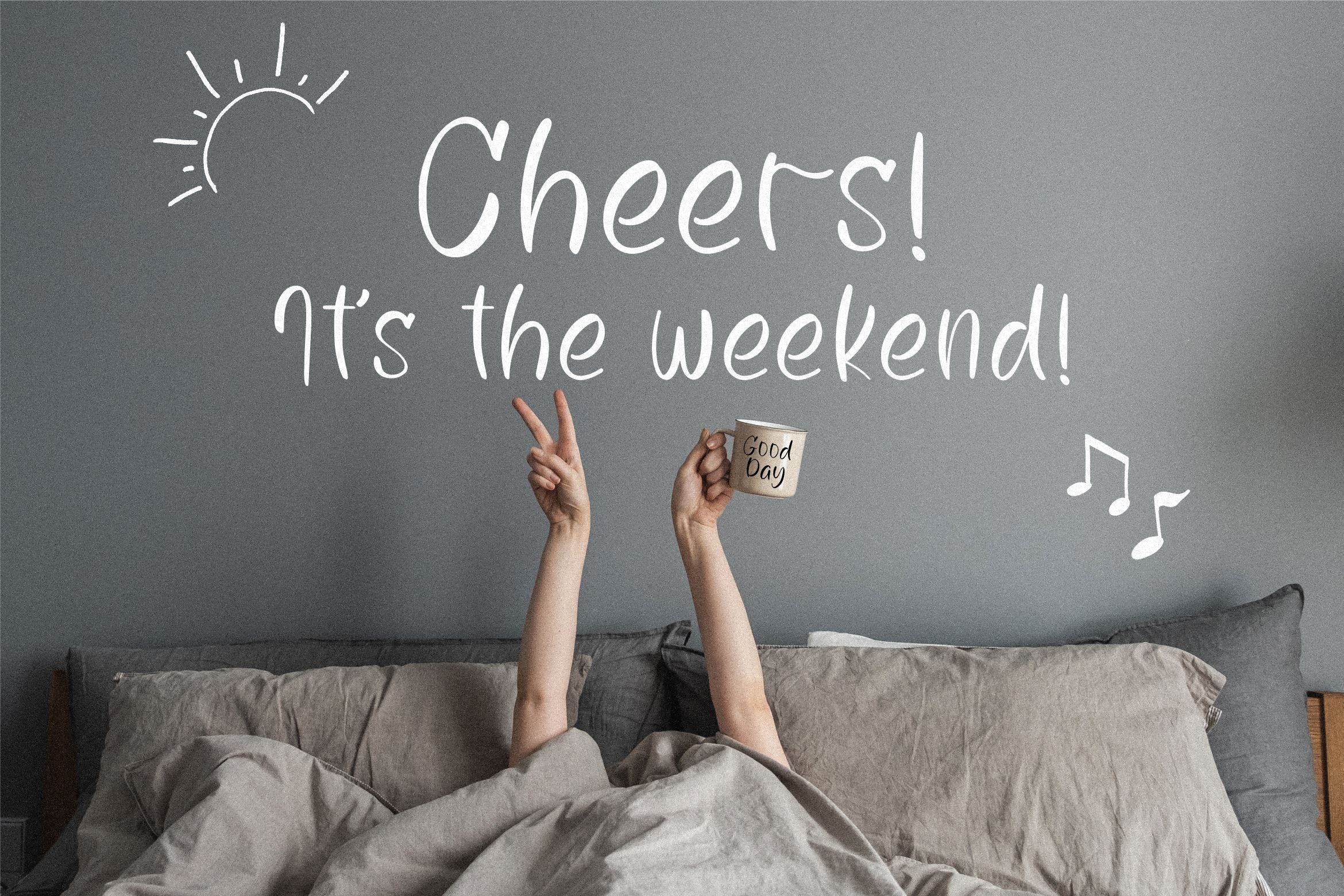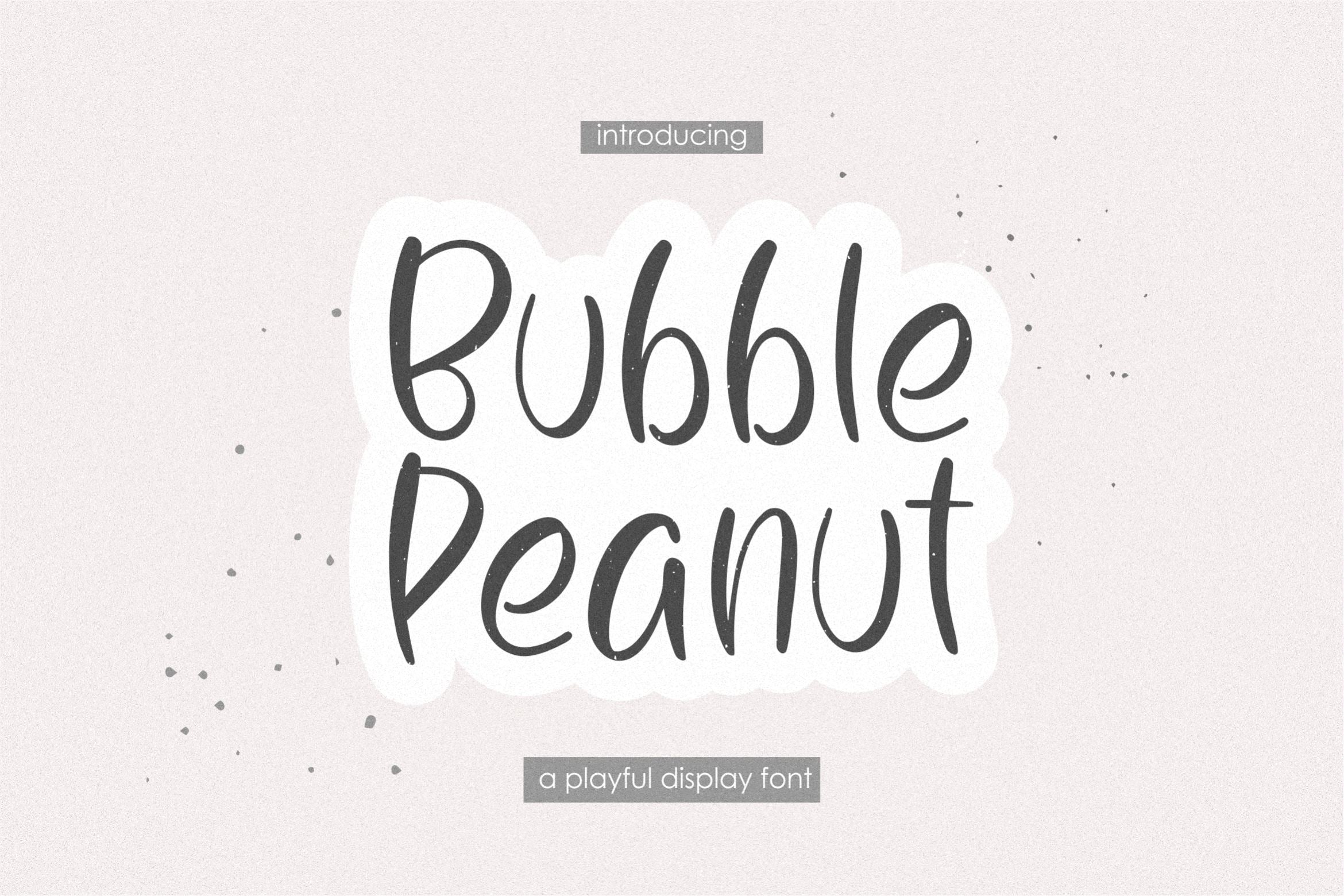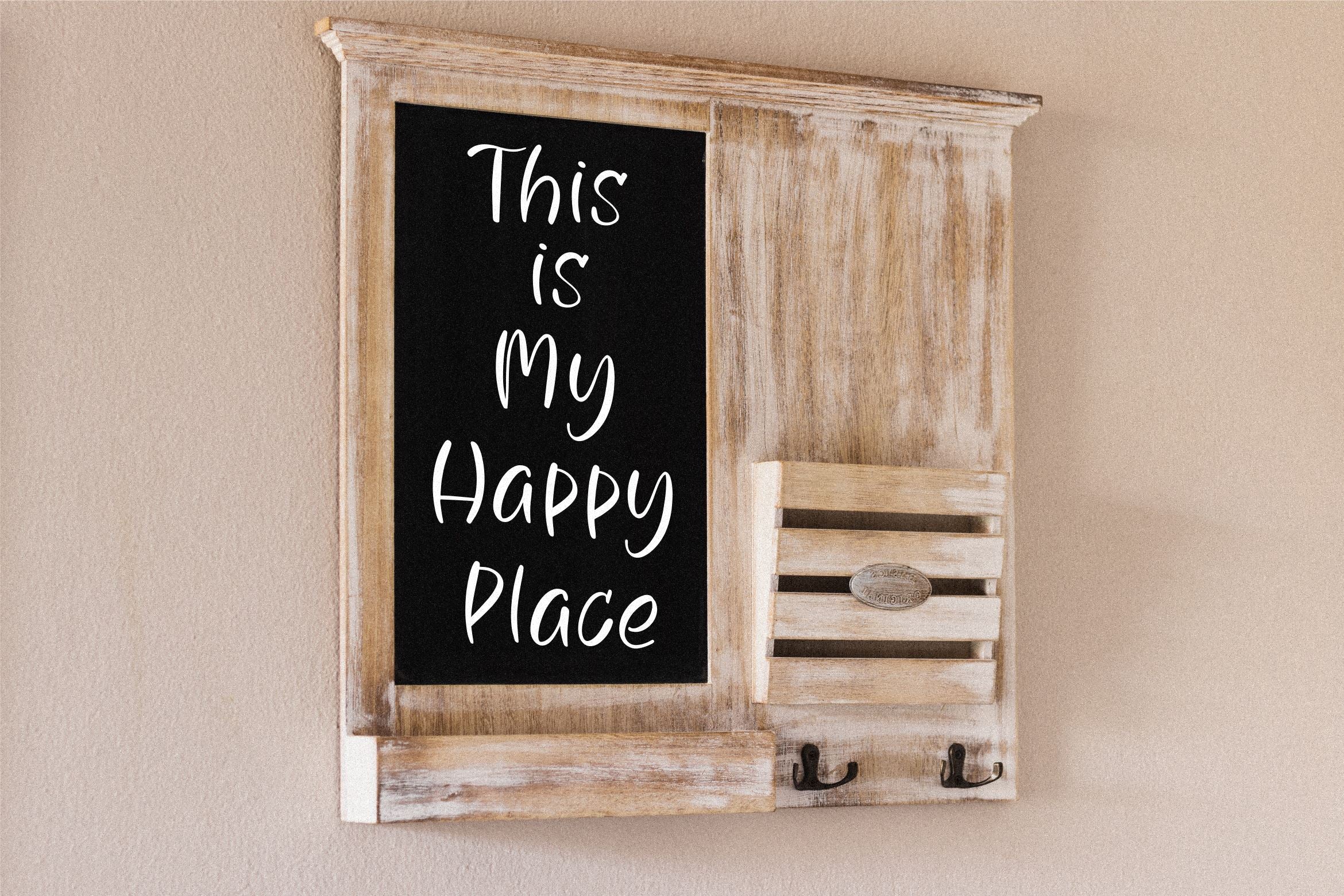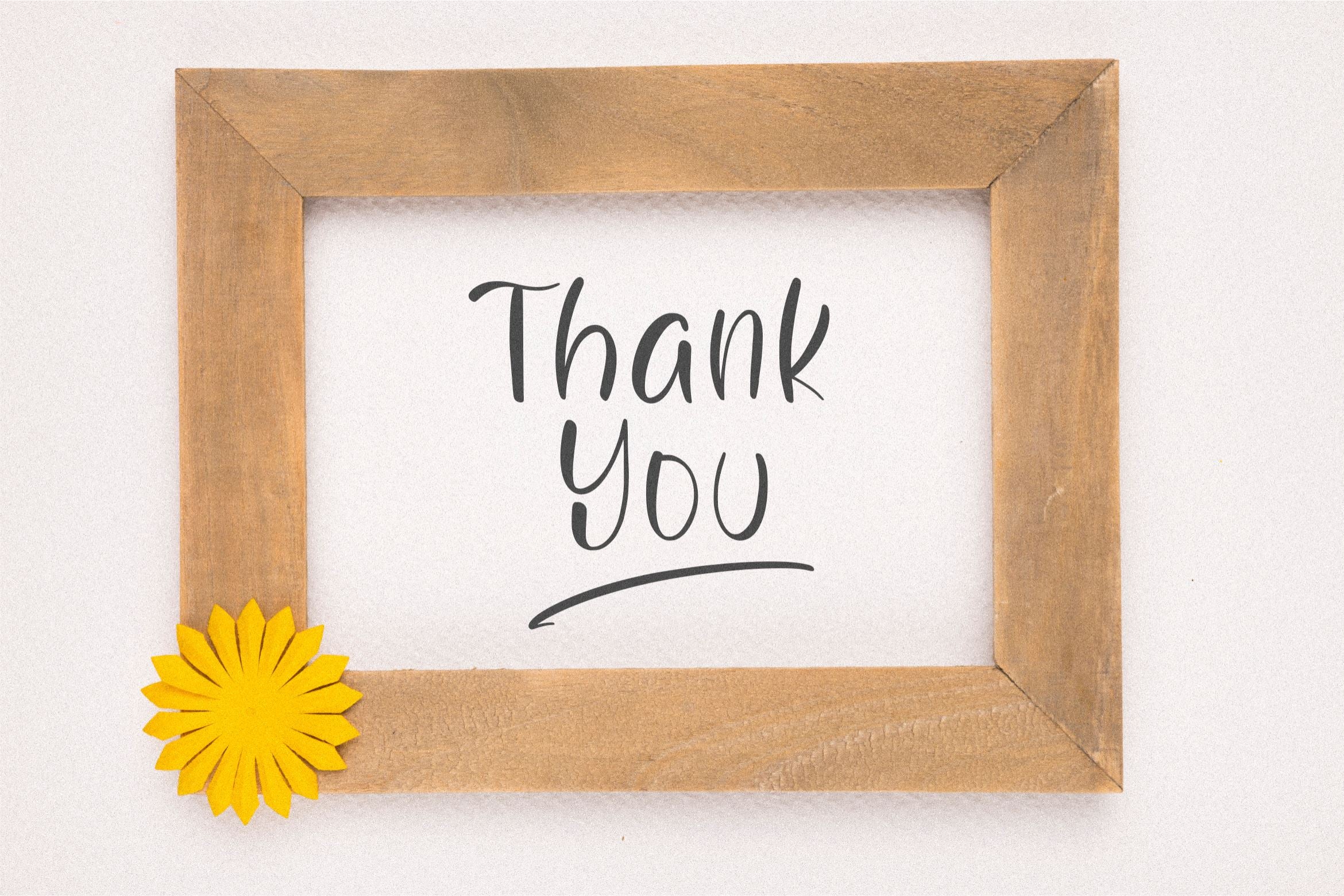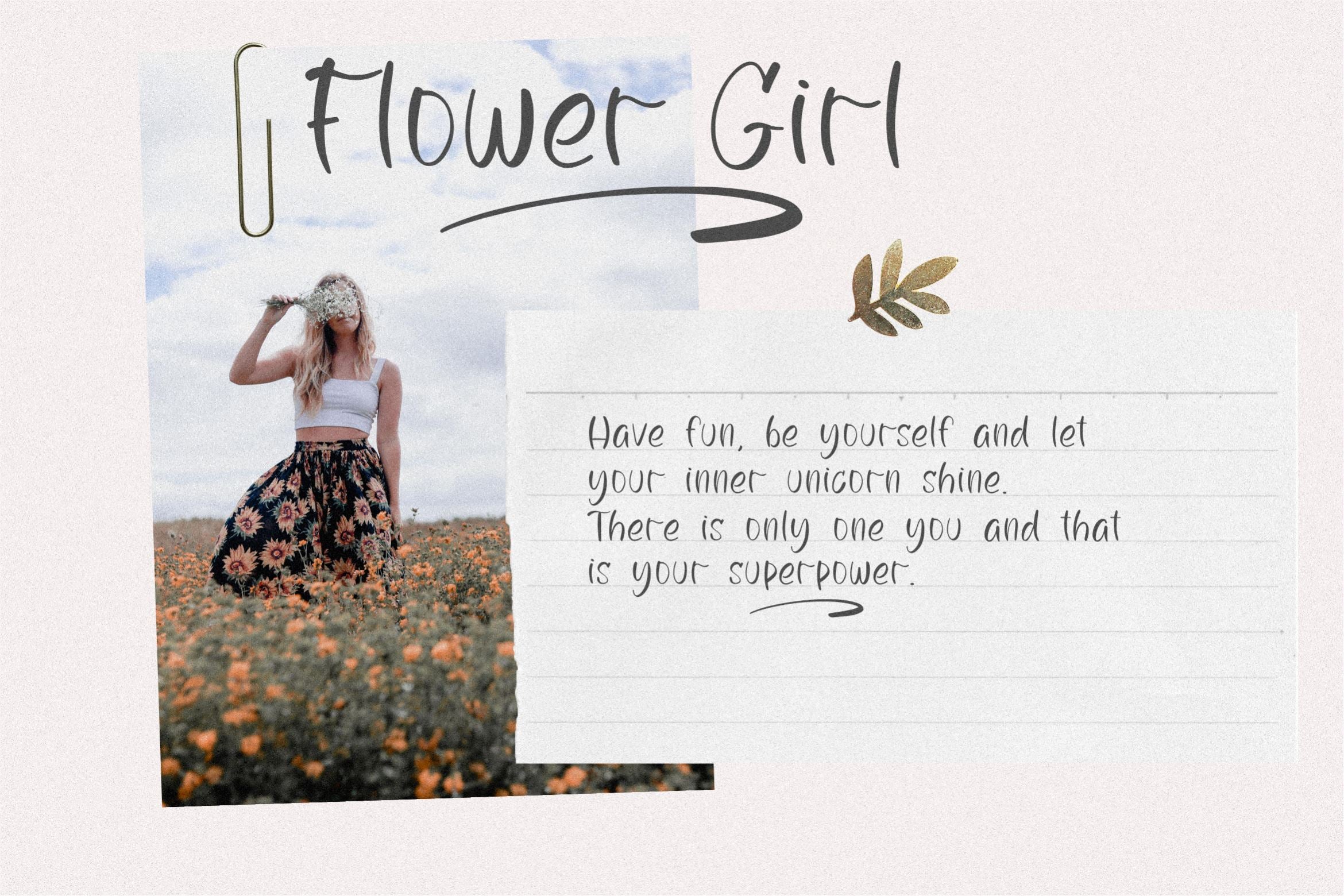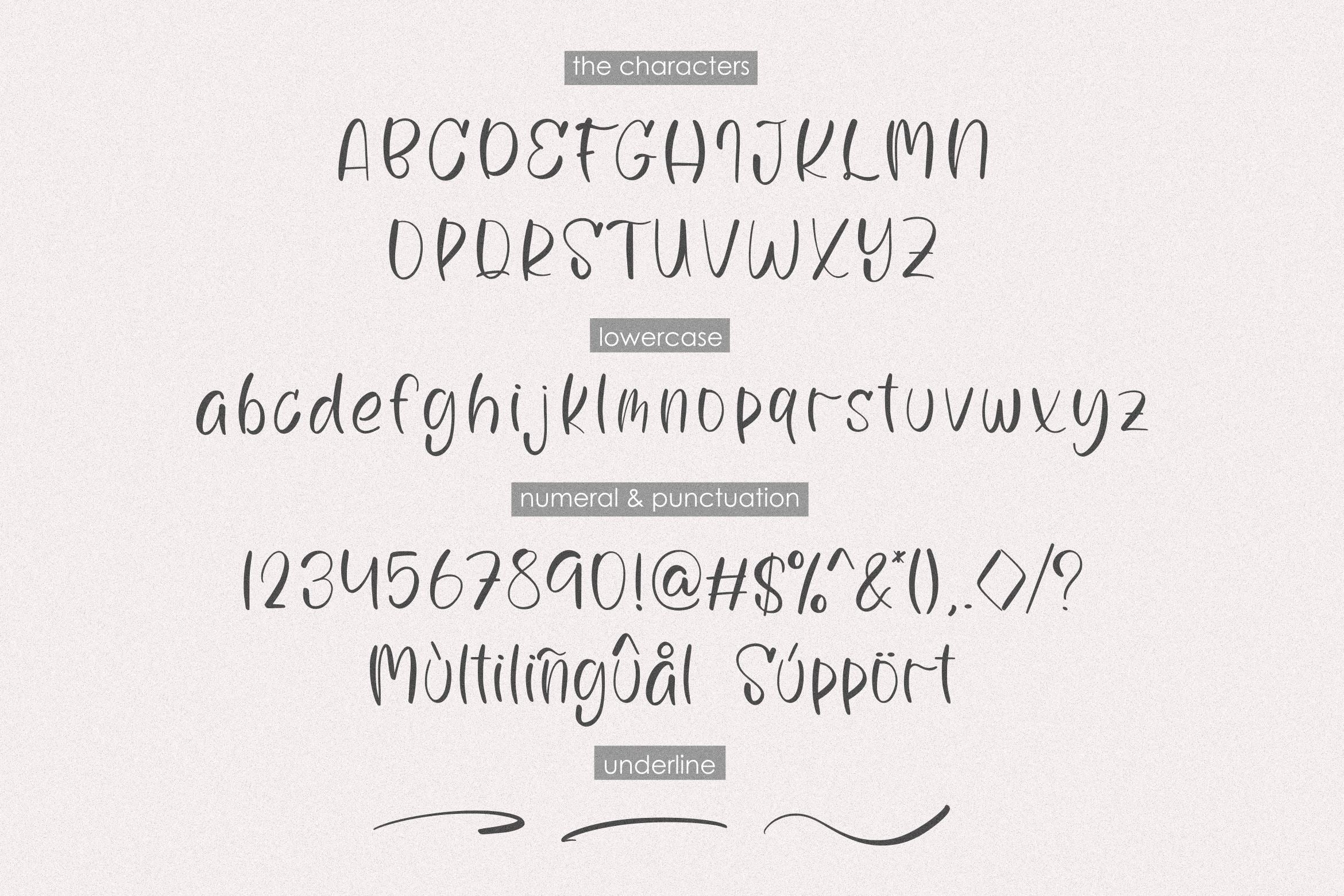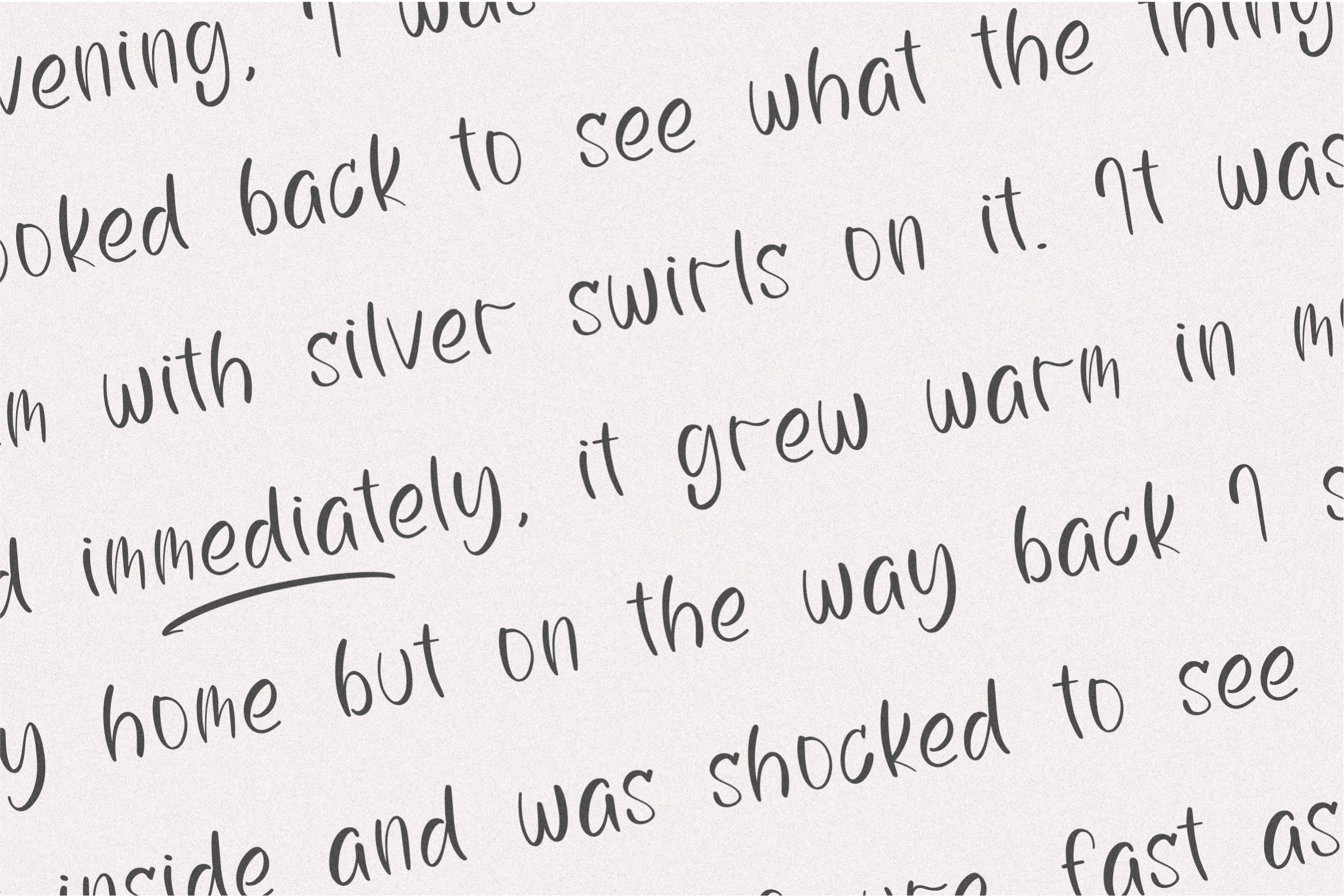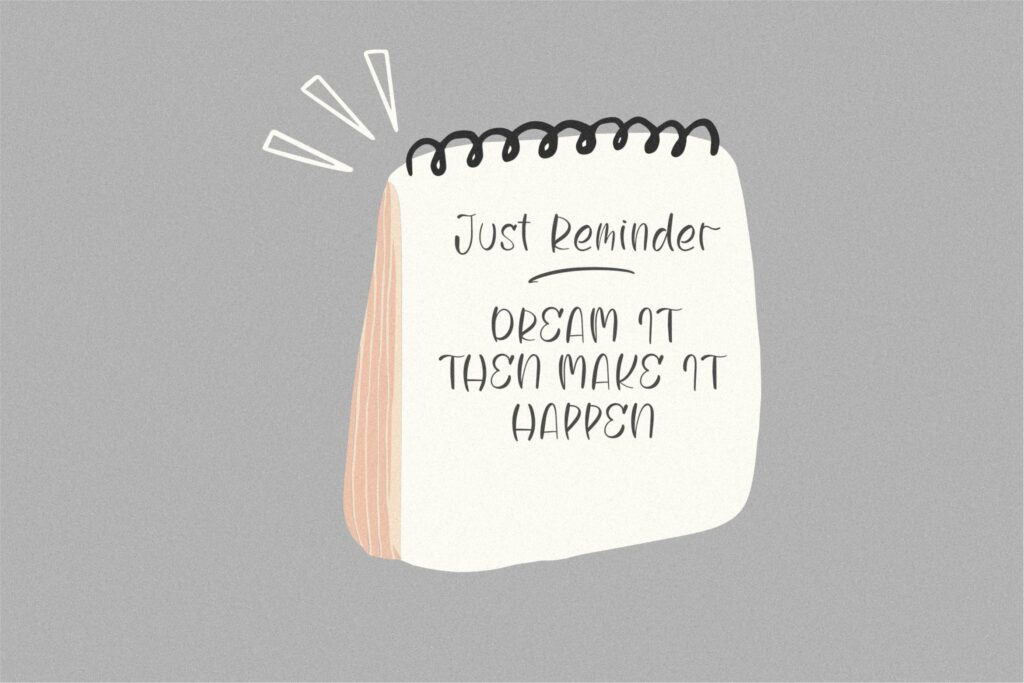
Bubble Peanut
Introducing by Qwrtype Proudly Present, Bubble Peanut Bubble Peanut is a Playful Display Font Bubble Peanut is perfect for product packaging, branding project, megazine, social media, wedding, or just used to express words above the background. This font includes OTF, TTF & Woff, Bubble Peanut also multilingual support. Enjoy the font, feel free to comment or feedback, send me PM or email. Thank you!